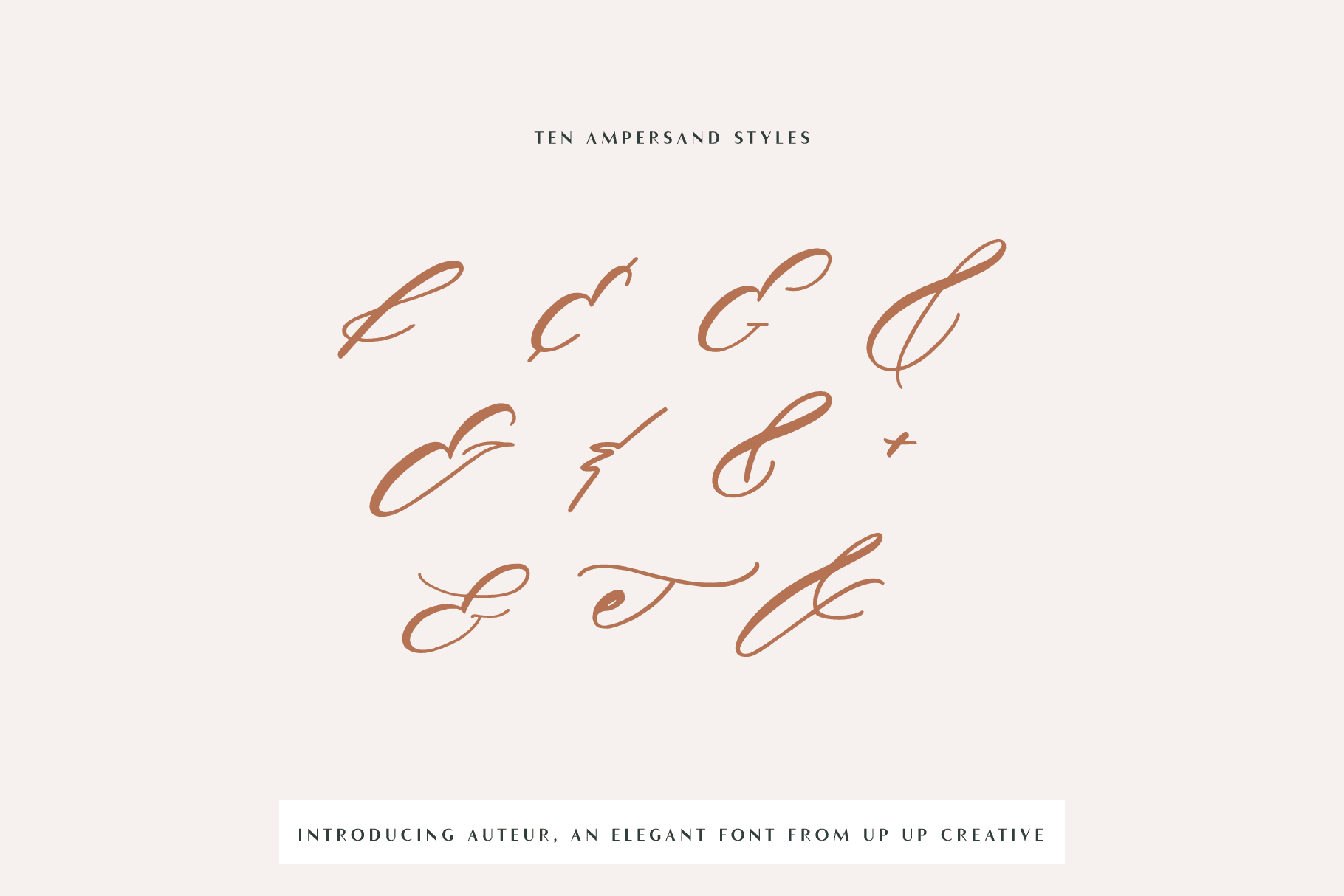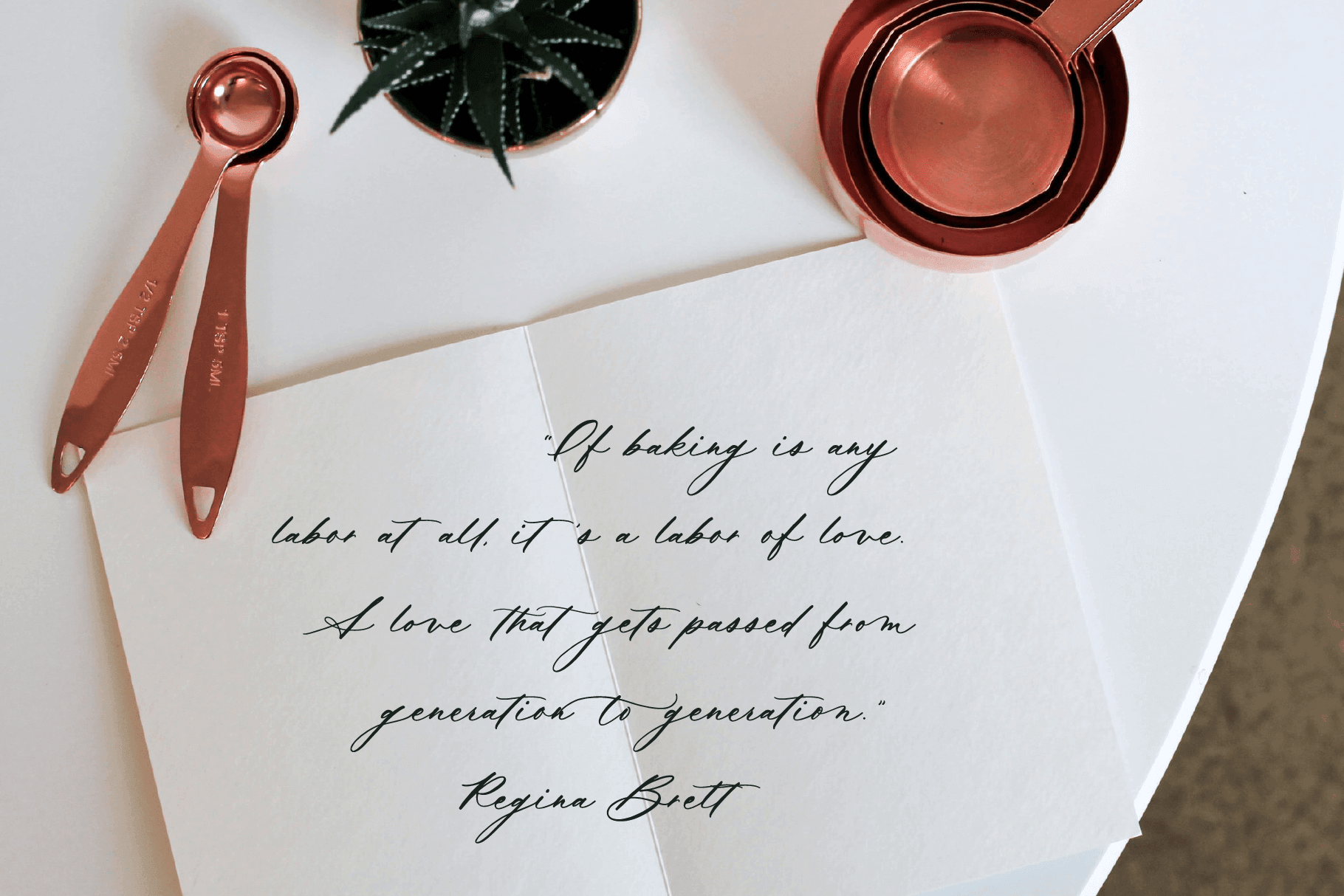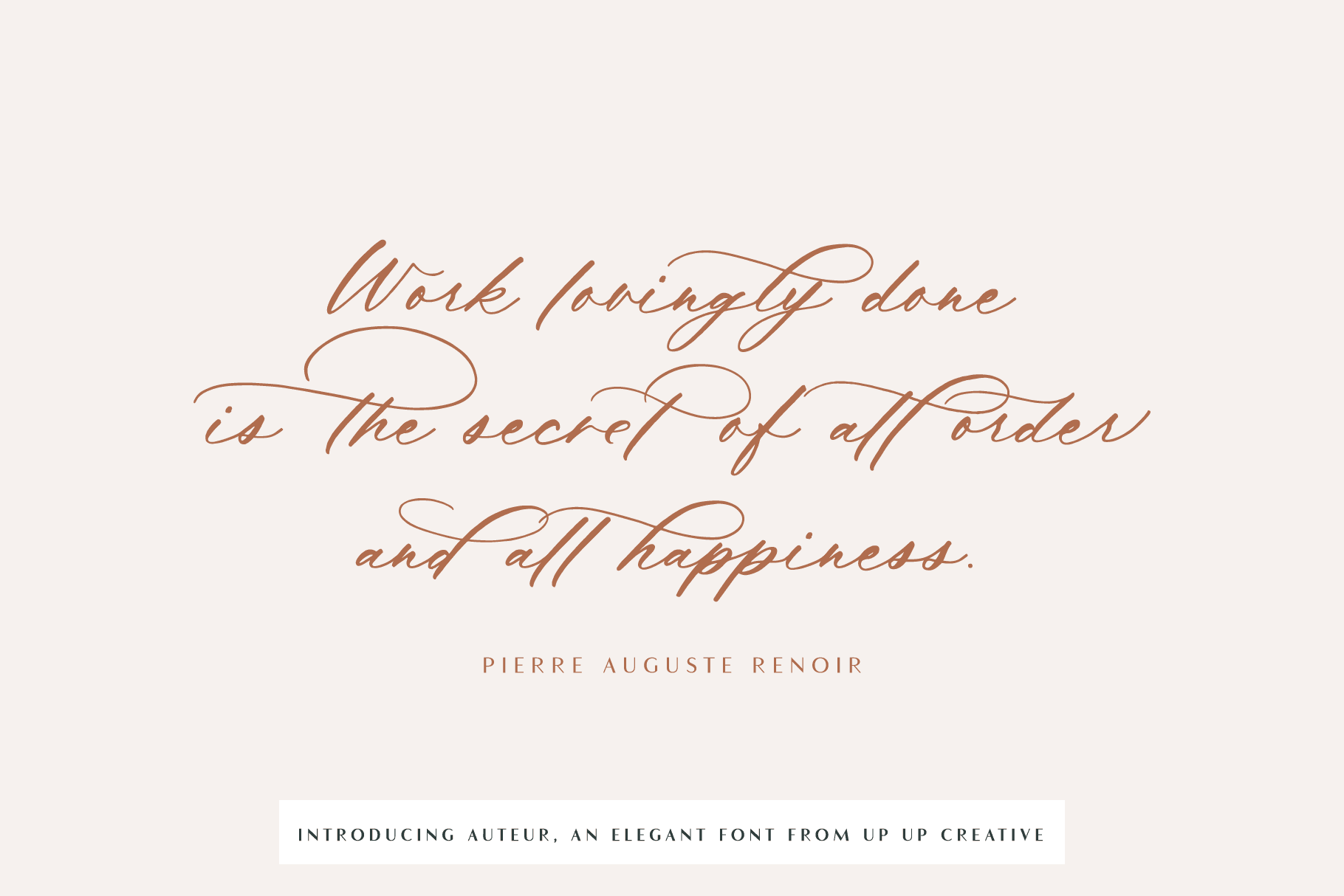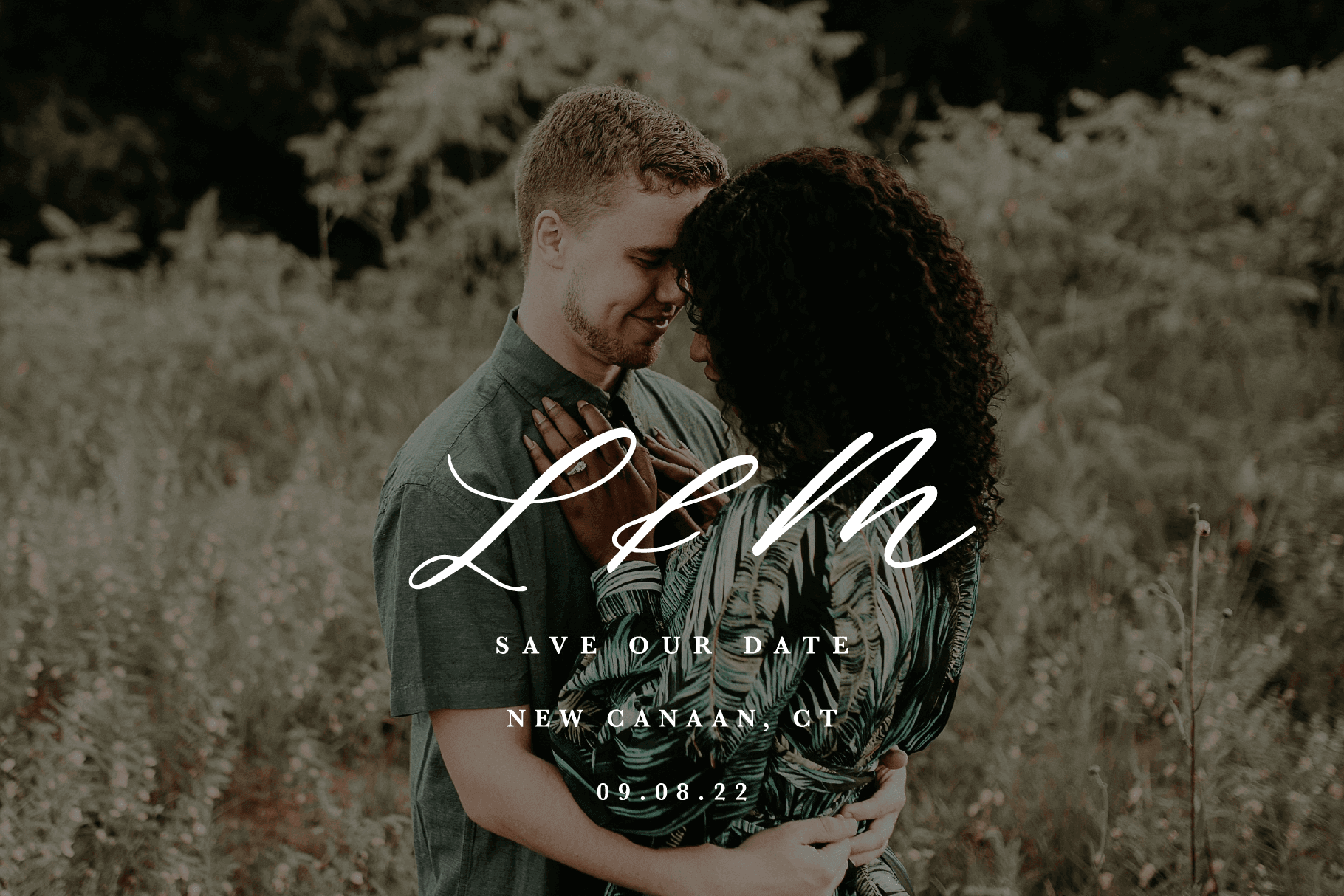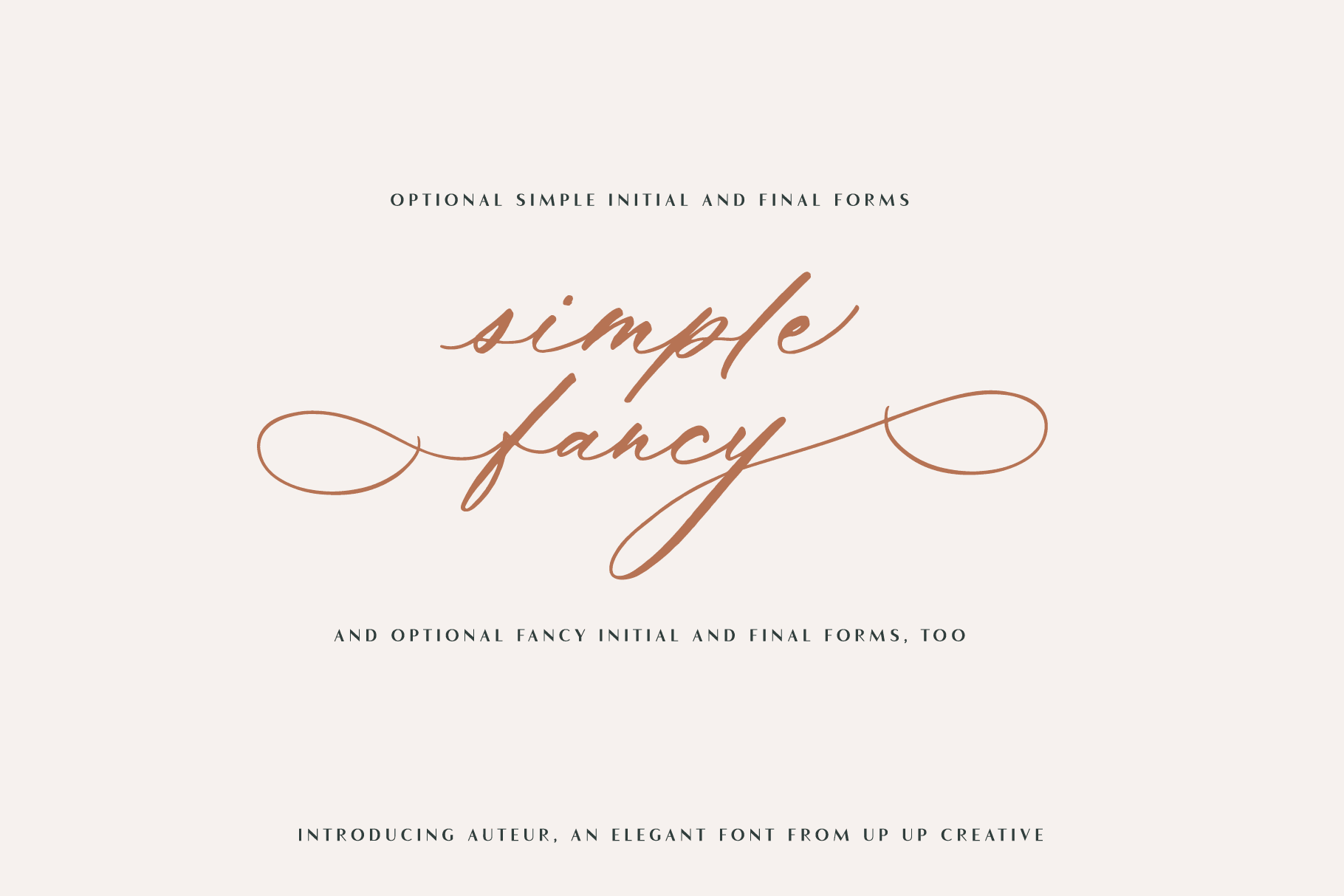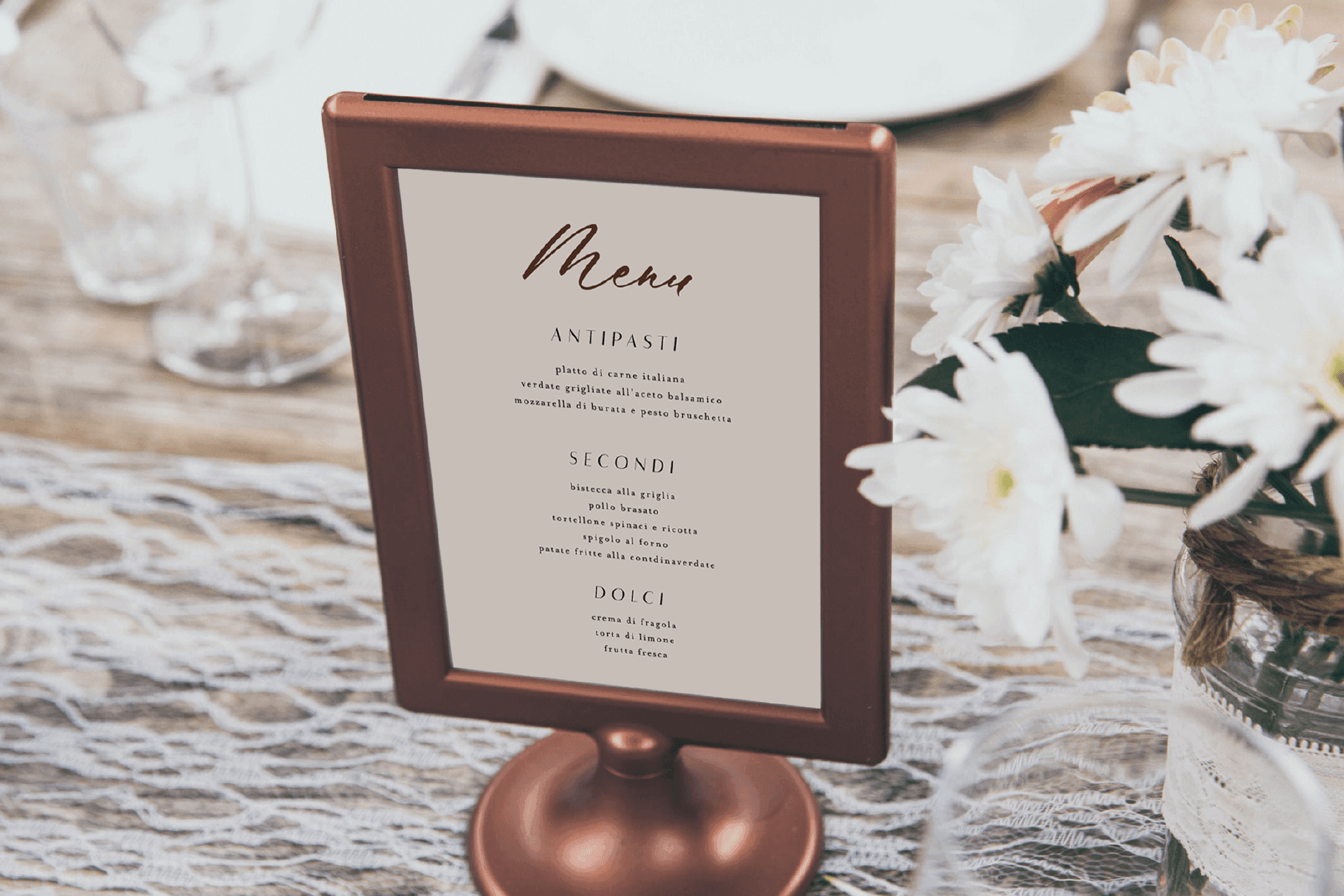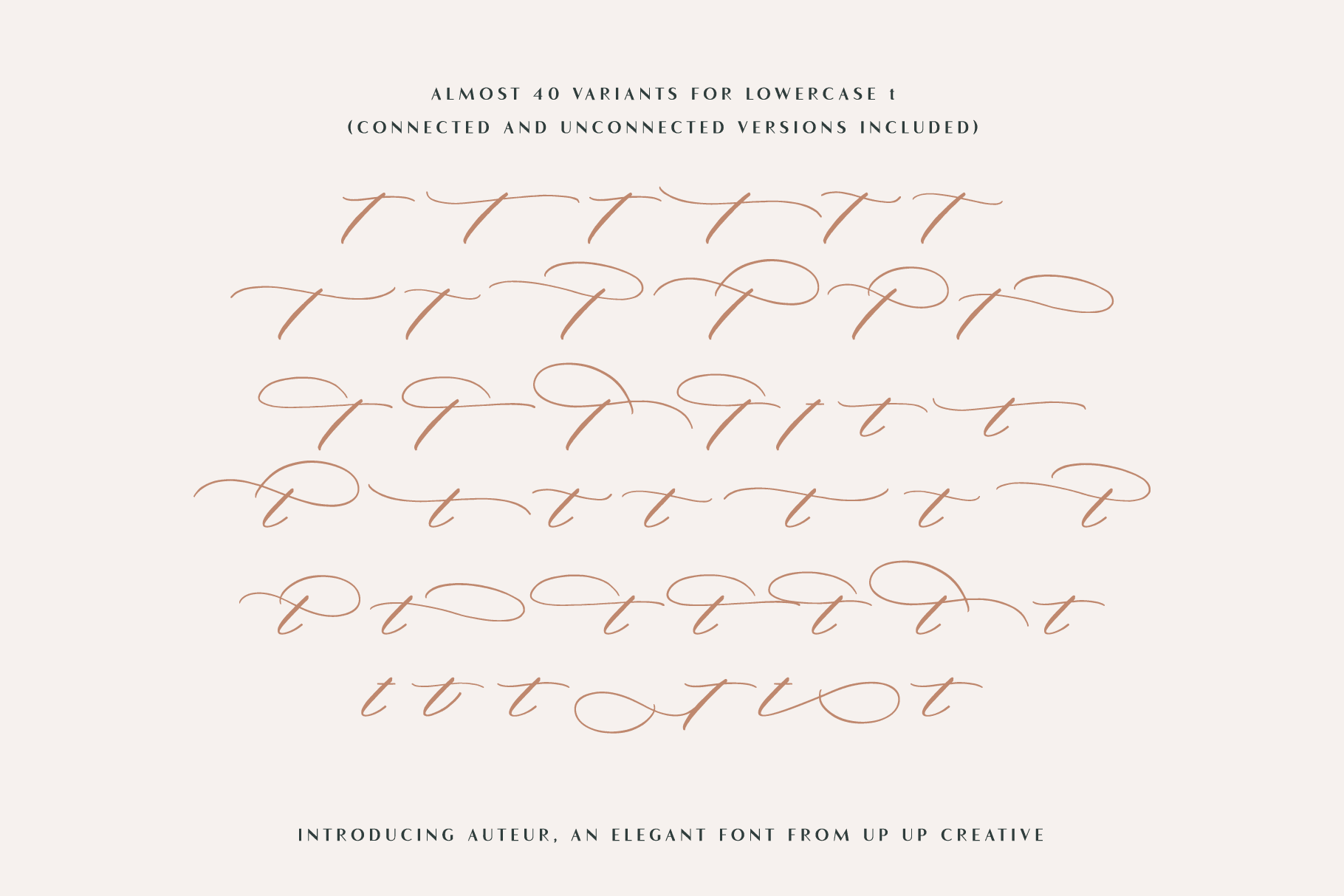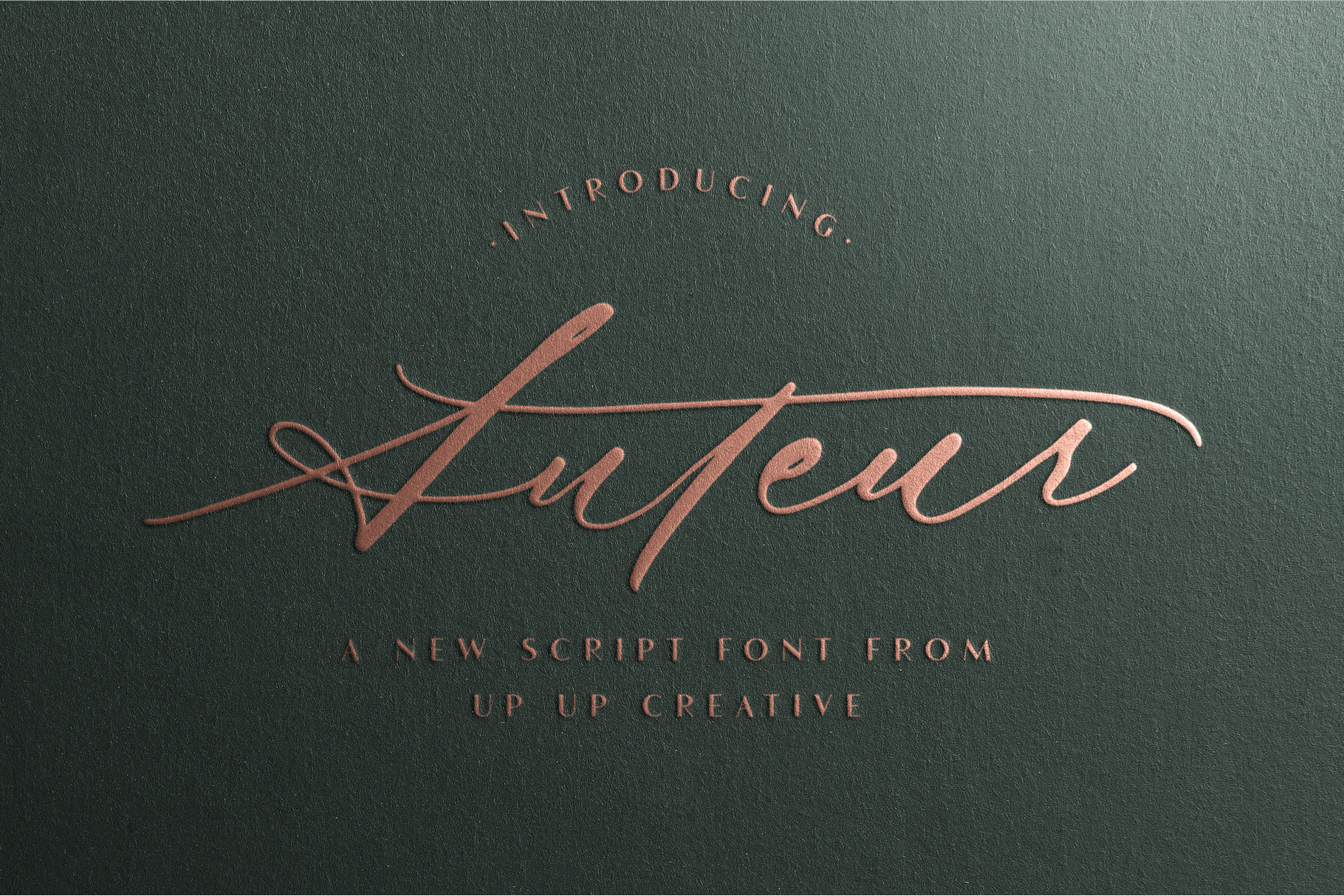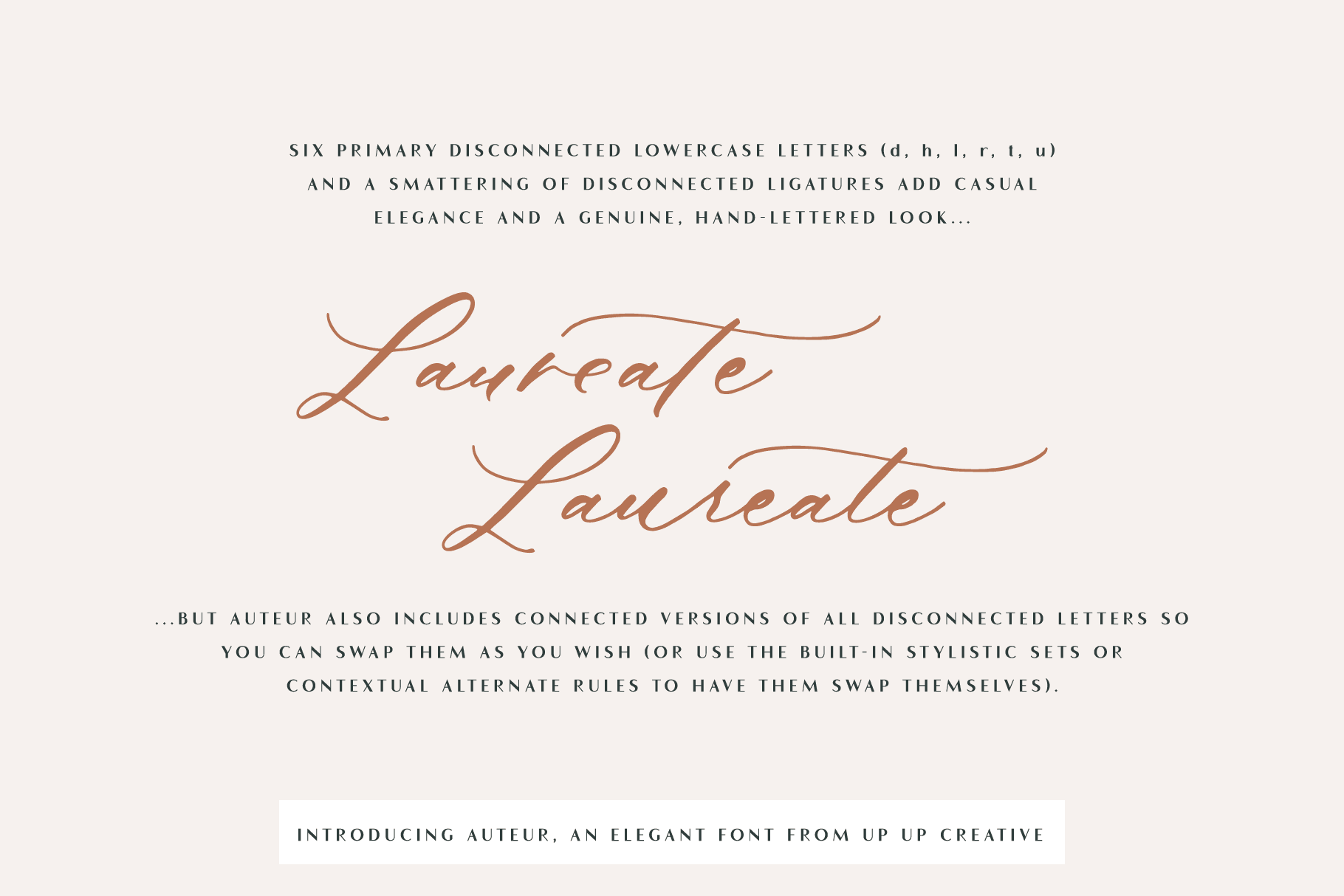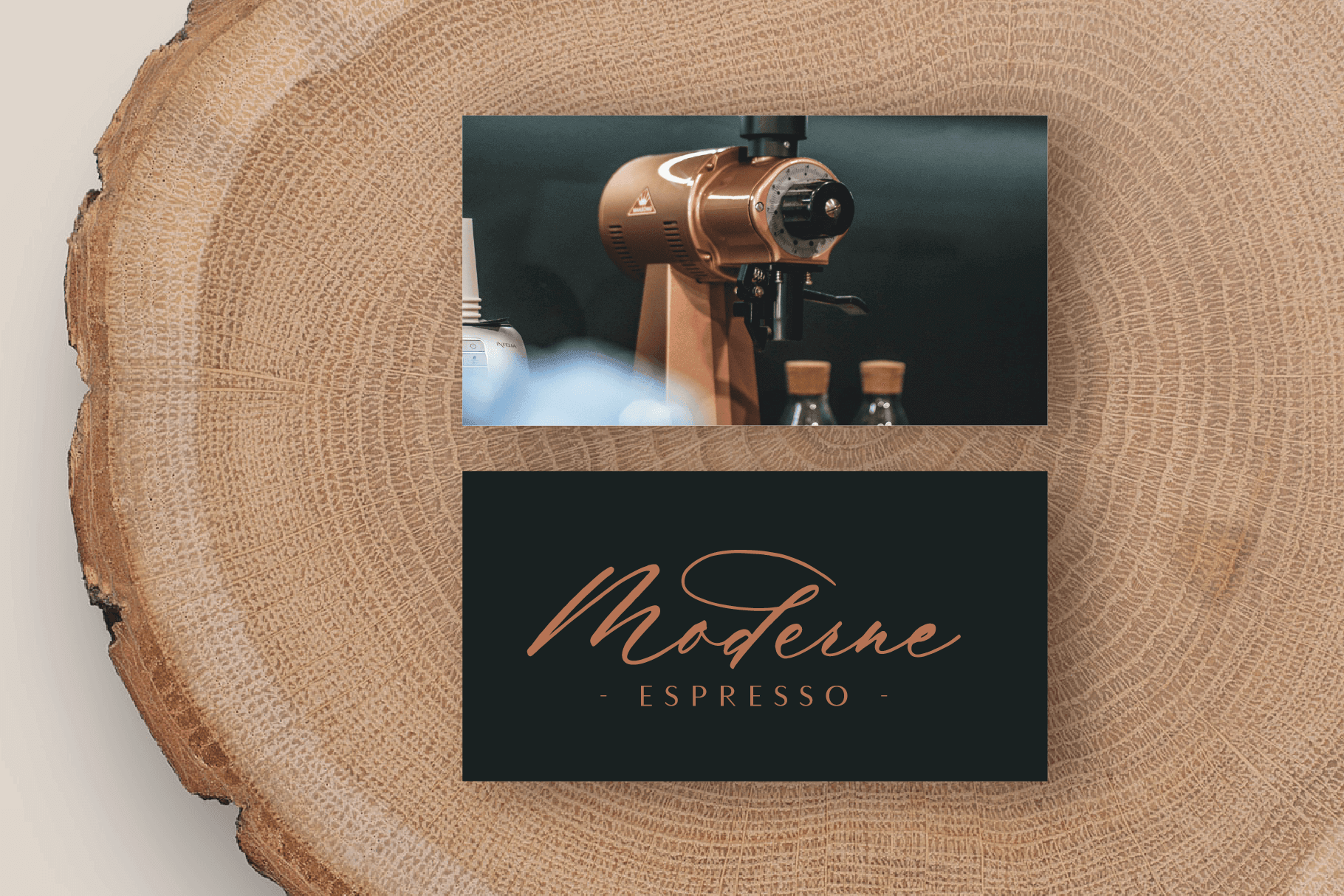
Auteur Script Font - A Calligraphy Font
Auteur is a graceful, full-featured script font with tons of alternate characters and OpenType features. Hand-lettered with a heavy right slant and realistic disconnected letters (connected versions also included), Auteur’s casual elegance is particularly well-suited to invitations, branding, and editorial design.
It has over 1200 glyphs, including multiple versions of all ascending and descending letters, making it lots of fun to play with layouts and compositions.
Auteur includes the following OpenType features:
- character variants
- contextual alternates
- standard and discretionary ligatures
- two different styles of initial and terminal forms
- lining, proportional, tabular, and oldstyle figures
- localized forms (multi-language and multi-currency support)
- ordinals and superscripts
- stylistic alternates
- stylistic sets
Includes 60 ligatures
- Includes 1225 glyphs
- 1 Style, 1 Weight